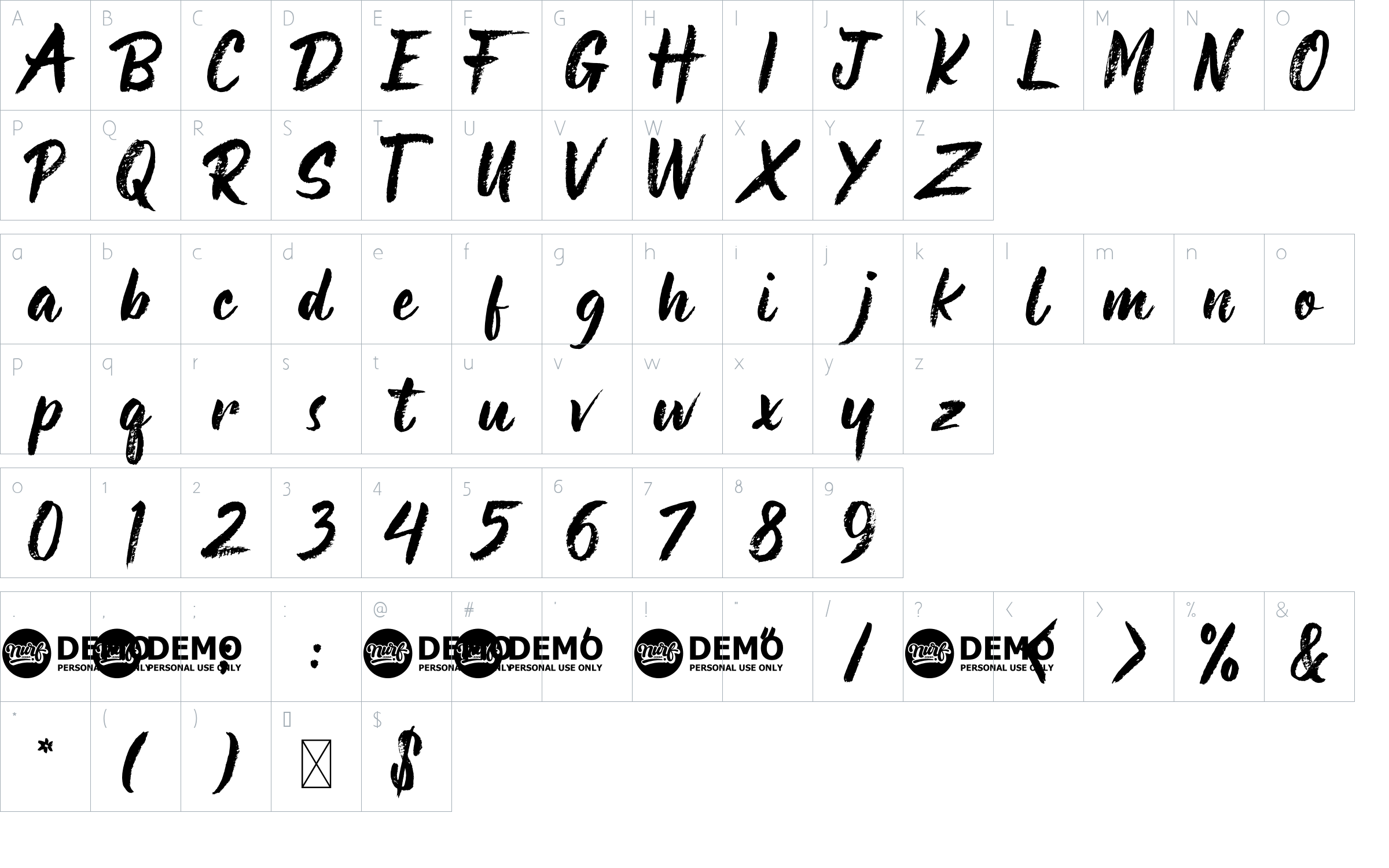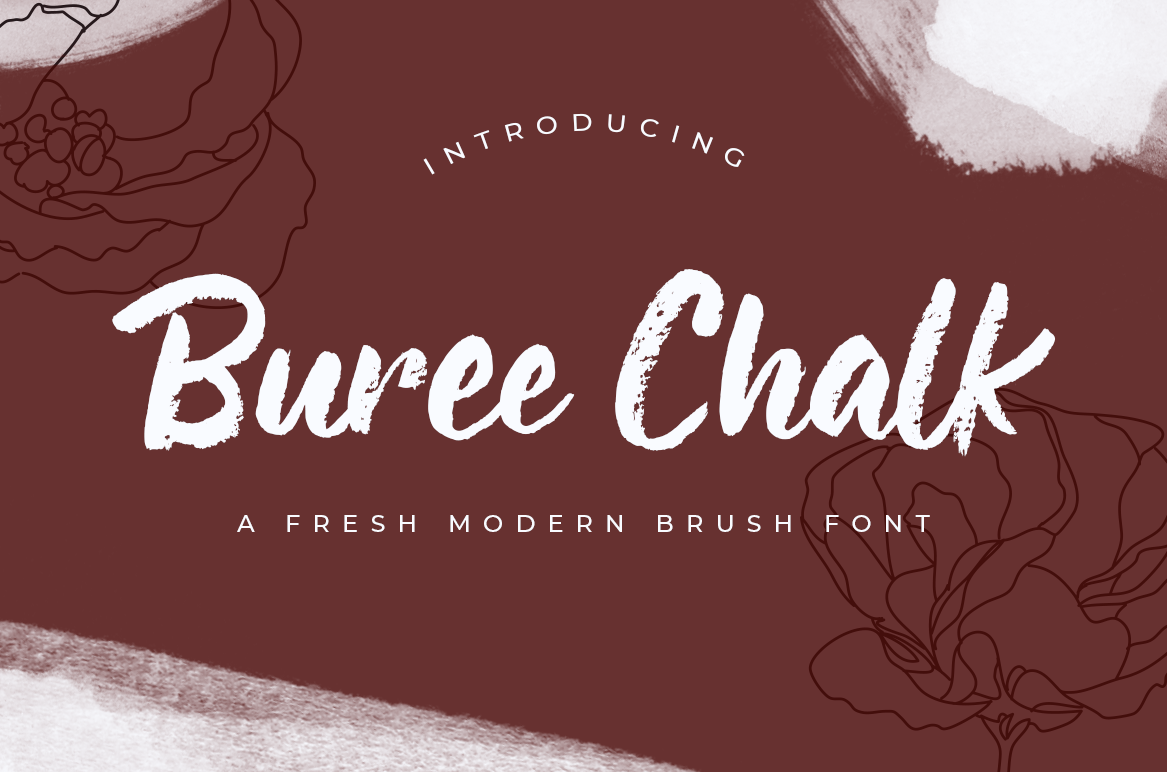
Buree Chalk – Fresh Modern Script Font
About Buree Chalk – Fresh Modern Script
Buree Chalk is a unique handwritten font with a chalk texture. Fall in love with it and bring your projects to the highest levels!